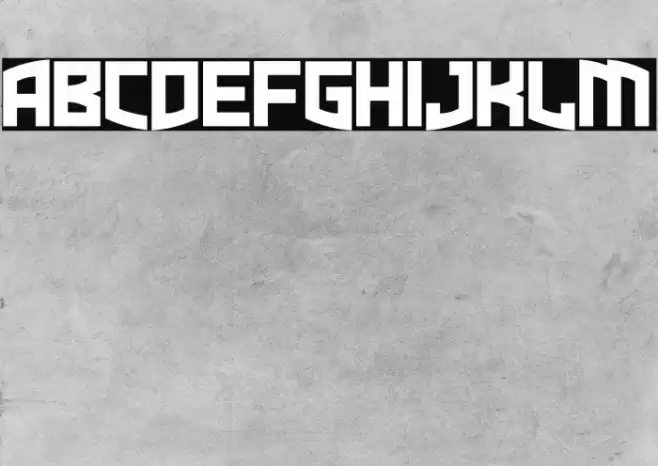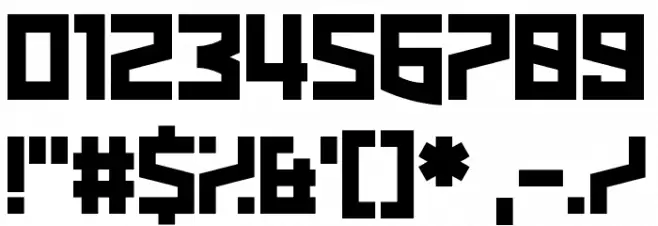
Dire Gramme Font
Dire Gramme Description
This font features a bold, geometric style with sharp angles and a futuristic aesthetic. The characters are constructed with thick, uniform strokes that create a strong visual impact. The uppercase and lowercase letters maintain a consistent design, emphasizing angular shapes and straight lines. Numbers and special characters follow the same stylistic approach, ensuring a cohesive look across all glyphs. The font's structure is reminiscent of digital or sci-fi themes, making it suitable for projects that require a modern and edgy appearance.
A bold, geometric font with a futuristic and angular design from Uncategorized fonts.
- Proposed Projects: Ideal for sci-fi movie posters, video game titles, tech branding, and futuristic-themed designs.
- Overall Style: Futuristic